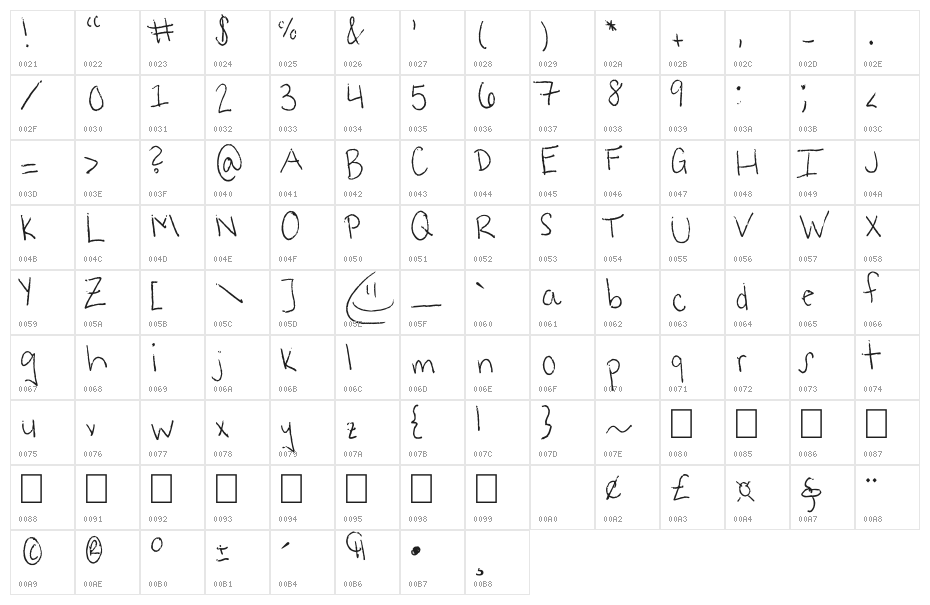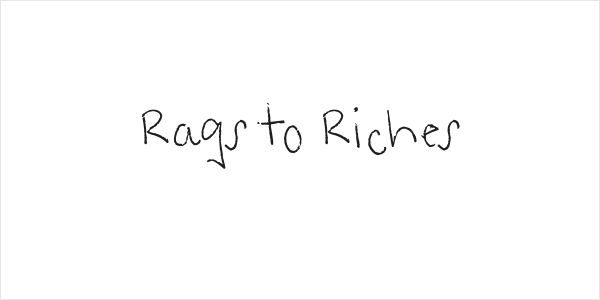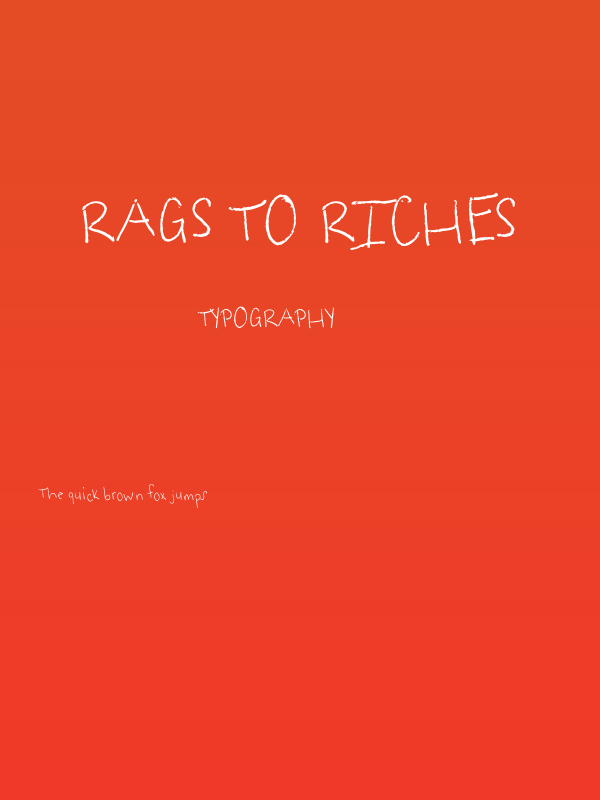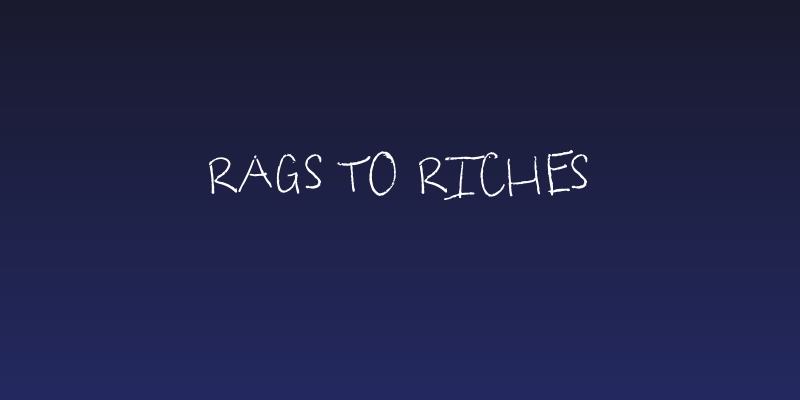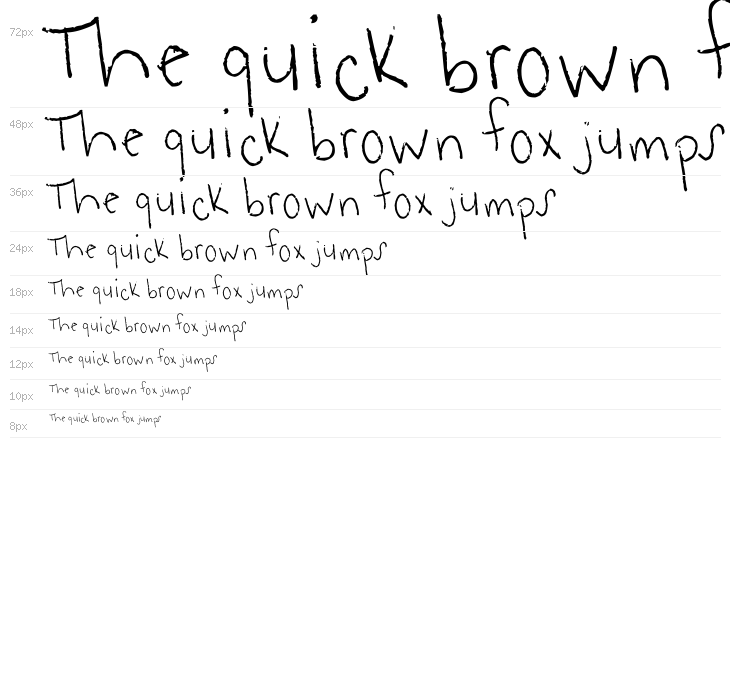
Rags to Riches Font
Rags to Riches Description
This font features a handwritten style with a casual and organic feel. The letters are uneven and slightly irregular, mimicking the look of natural handwriting. The strokes are varied in thickness, giving it a dynamic and lively appearance. The uppercase and lowercase letters maintain a consistent style, with playful curves and a slightly rough texture. The numbers and special characters follow the same aesthetic, ensuring a cohesive look throughout. This font exudes a personal and informal vibe, making it suitable for projects that require a touch of authenticity and warmth.
| Use Case | Logos, Headlines, Informal text |
| Proposed Projects | Ideal for personal notes, greeting cards, informal invitations, and creative projects that require a personal touch. |